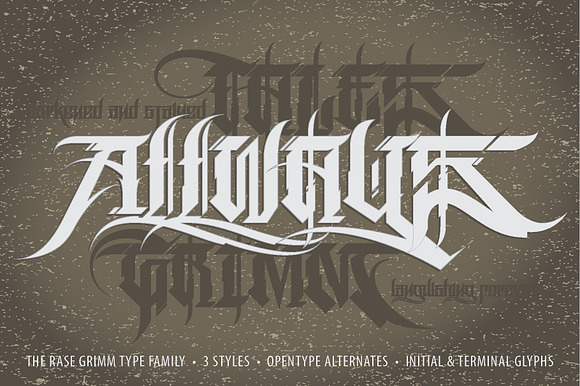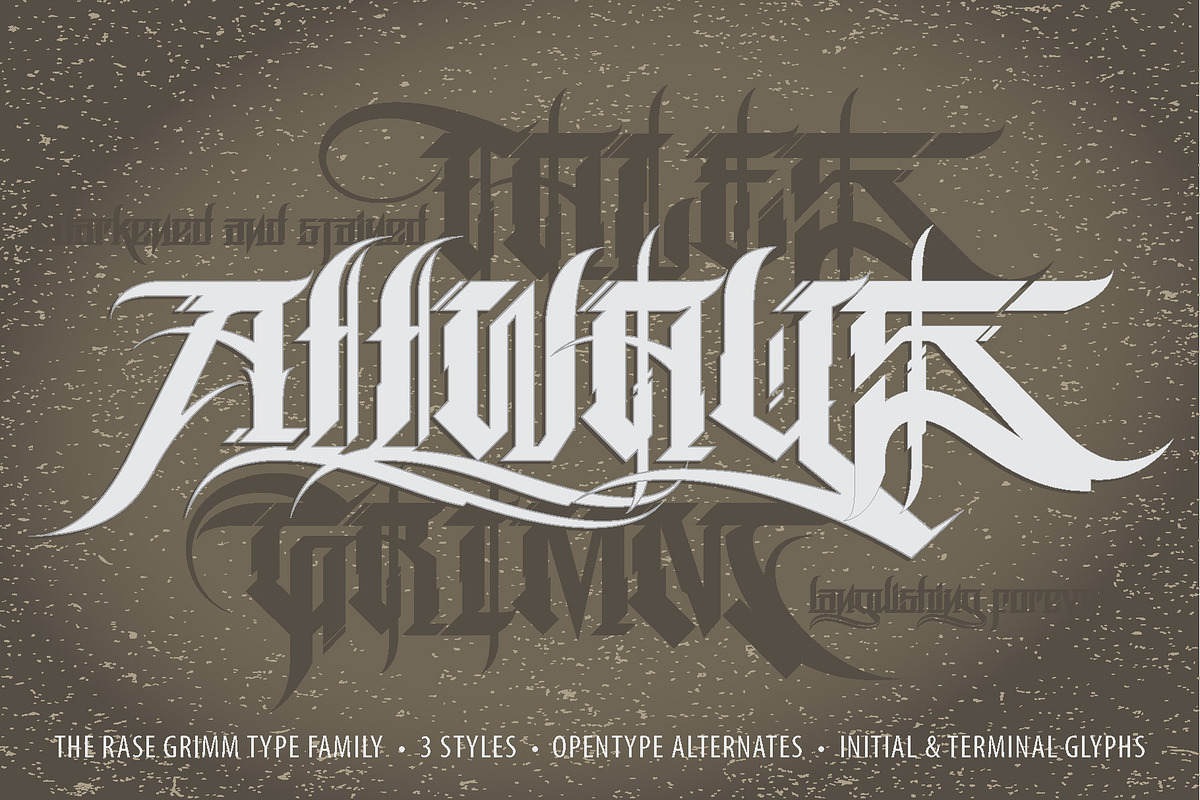
Rase Grimm - 3 Font Family
The Rase Grimm family is a blackletter inspired graffiti style built for headline and display. This robust, OpenType family includes 3 variants: Grimm Regular & Grimm Curves both utilize traditional upper & lowercase letters while the Grimm Fat variation is an all-caps style. All 3 styles include initial, terminal & isolated letter variations as contextual alternates as well as a number of stylistic alternates, ligatures & other embellishments.